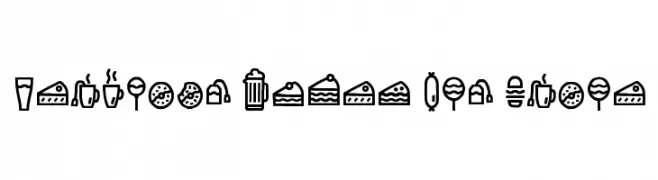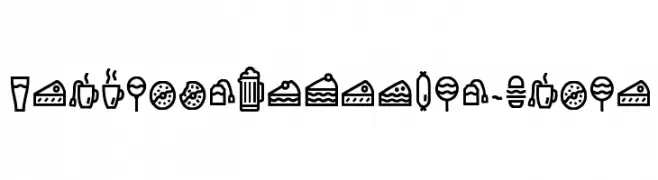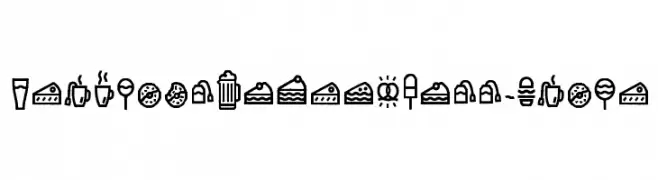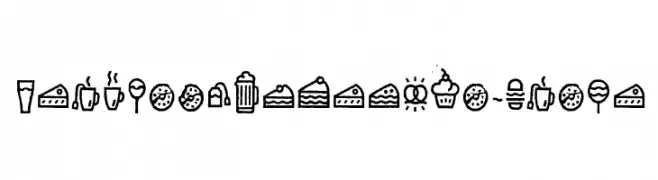
A versatile set of bold, clean dingbat symbols and icons.
A playful set of food and drink icons with bold outlines and a modern style.
A playful and bold icon set featuring food, drinks, and decorative elements.
A playful icon set featuring food, beverages, and decorative symbols with a cartoonish style.
A playful and cohesive set of food and drink icons with a modern, cartoon-like style.
A playful icon set featuring food, drinks, and directional elements with bold outlines.
Hand-drawn, bold icon set with a playful and casual style.